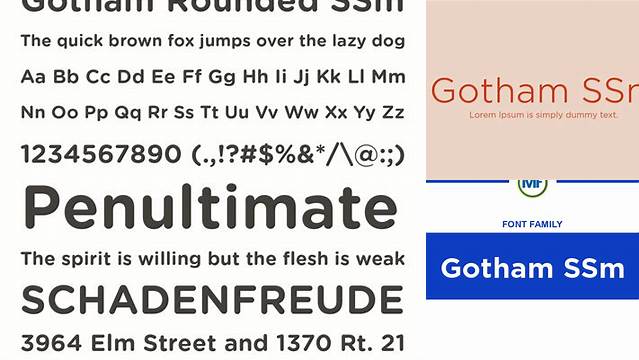
Hey guys! Are you on the hunt for the sleek and modern Gotham SSM font family? You've landed in the right spot! This font is a fantastic choice for a wide range of design projects, from branding to web design, thanks to its clean lines and versatile nature. In this guide, we’re going to dive deep into everything you need to know about Gotham SSM, including where to find a free download, how to use it, and its best applications. Let's get started!
Gotham SSM Font Family Overview
Before we jump into the nitty-gritty, let's get a clear picture of what the Gotham SSM font family is all about. The Gotham SSM font family is a contemporary sans-serif typeface known for its geometric shapes and readability. This makes it a favorite among designers who want a font that's both stylish and functional. Whether you’re designing a website, creating a logo, or working on print materials, Gotham SSM can bring a touch of modern sophistication to your work. The font's versatility stems from its various weights and styles, giving you plenty of options to play with. So, if you’re looking for a font that’s both professional and approachable, Gotham SSM might just be the perfect fit for your project.
Using Gotham SSM Font in Web Design
When it comes to web design, the Gotham SSM font can be a real game-changer. Its clean lines and modern aesthetic make it perfect for creating websites that look both professional and approachable. Using a font like Gotham SSM can significantly enhance the user experience by making your content more readable and visually appealing. To use Gotham SSM on your website, you'll typically need to either host the font files yourself or use a web font service like Adobe Fonts (if you have a subscription) or Google Fonts (for free alternatives). Once you've got the font files, you can use CSS to specify Gotham SSM as the font family for your text elements. For example, you might use the font-family property in your CSS to set the font for your headings and body text. Remember to consider different font weights and styles to create visual hierarchy and emphasis on your pages. With Gotham SSM (or a similar font), your website will have that polished, contemporary look that users will love.
Gotham SSM Font for Logo Design
If you're in the process of designing a logo, Gotham SSM font is definitely worth considering. Its geometric structure and clear, modern appearance make it an excellent choice for creating logos that are both memorable and versatile. A well-designed logo needs to be legible in various sizes and across different mediums, and Gotham SSM excels in this regard. The font's simplicity allows it to work well in both large and small formats, ensuring that your logo remains clear and impactful. Plus, the different weights and styles within the Gotham SSM family give you plenty of flexibility to experiment with different looks and feels. Whether you're designing a logo for a tech startup, a creative agency, or a corporate brand, Gotham SSM can help you achieve a polished and professional result. Its clean lines convey a sense of trustworthiness and modernity, making it a popular choice for businesses that want to project a contemporary image.
Gotham SSM Font Pairing Guide
Choosing the right font pairing can make or break a design, so let's talk about how to pair Gotham SSM font effectively. Gotham SSM is a versatile sans-serif, which means it plays well with a variety of other fonts. Generally, pairing a sans-serif with a serif font can create a nice contrast and visual interest. For example, you might pair Gotham SSM with a classic serif like Georgia or Times New Roman for body text, giving your design a balanced and sophisticated look. Alternatively, you could pair Gotham SSM with another sans-serif font, but make sure there's enough contrast between the two. Open Sans or Lato can be good choices, as they have slightly different characteristics that complement Gotham SSM without being too similar. The key is to ensure that the fonts work together harmoniously and enhance the overall readability and aesthetic of your design. Experiment with different combinations to see what works best for your specific project, and don't be afraid to break the rules if it serves your design vision!
Gotham SSM Font Weight and Styles
One of the things that makes the Gotham SSM font so versatile is its range of weights and styles. From thin and light to bold and black, the Gotham SSM family offers a wide spectrum of options that can be used to create visual hierarchy and emphasis in your designs. The different weights allow you to differentiate between headings, subheadings, and body text, making your content more organized and readable. For example, you might use Gotham SSM Bold for headlines to grab attention and Gotham SSM Regular for the main text to ensure readability. Additionally, Gotham SSM comes in various styles, such as italic and condensed, which can add further nuance to your designs. Using these different styles strategically can help you create a more dynamic and engaging visual experience. So, when working with Gotham SSM, be sure to explore the full range of weights and styles to make the most of this powerful font family.